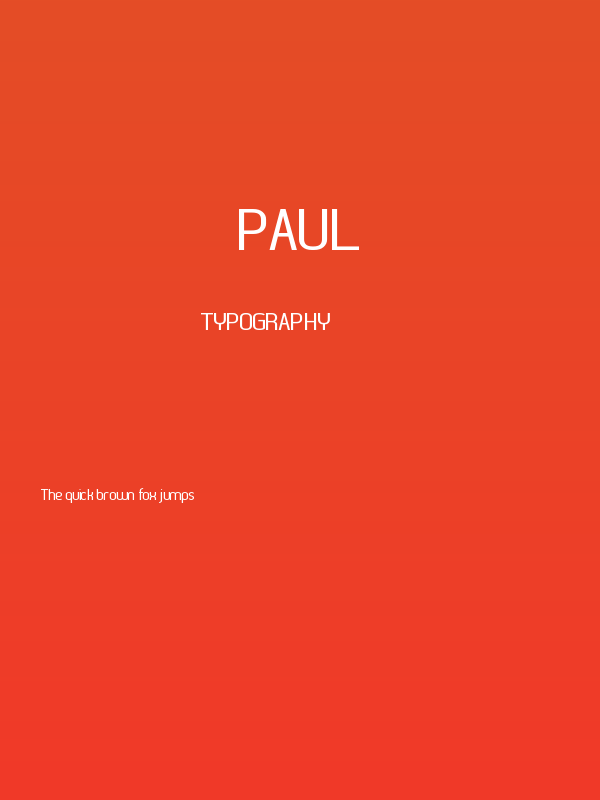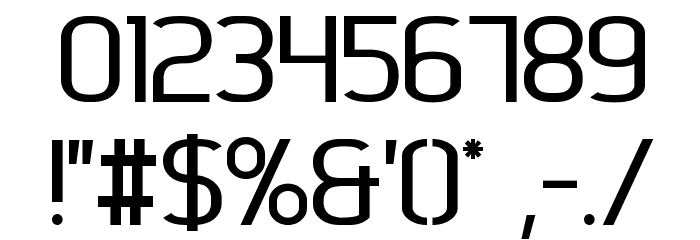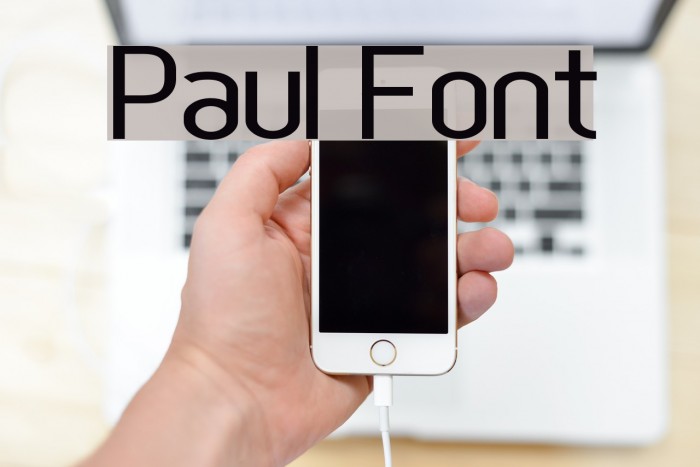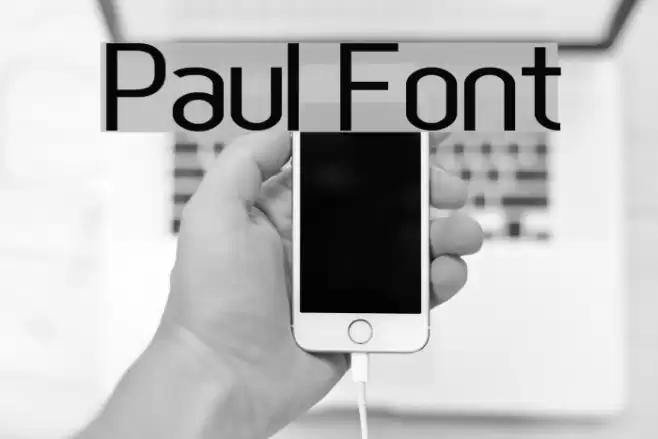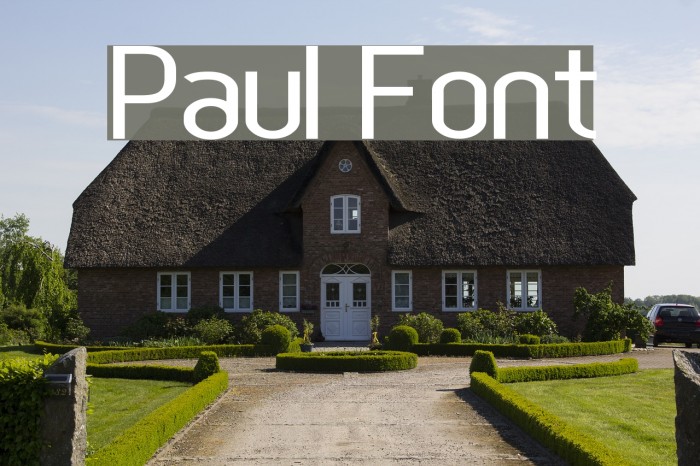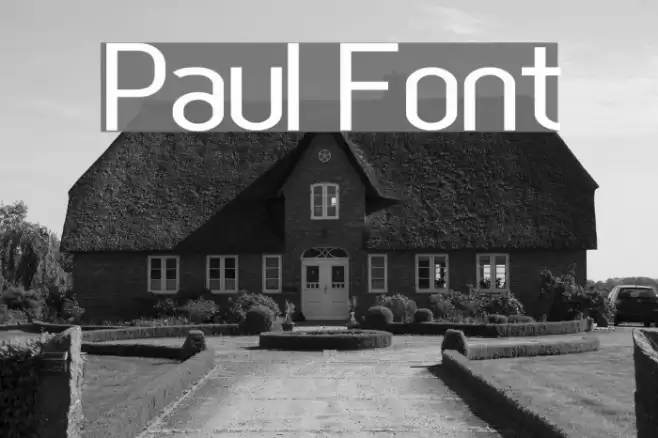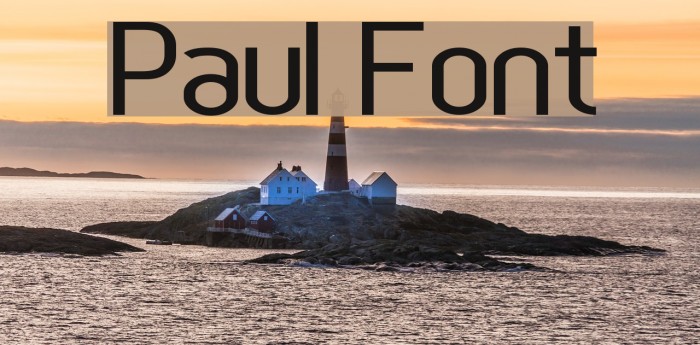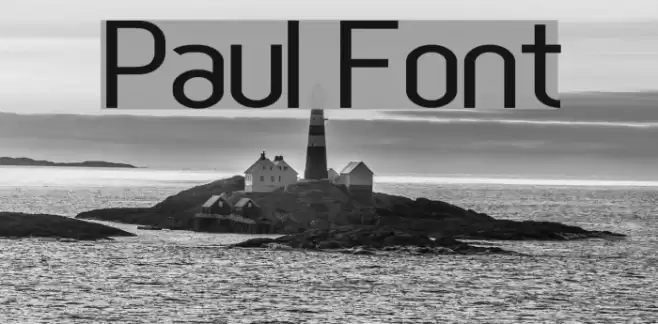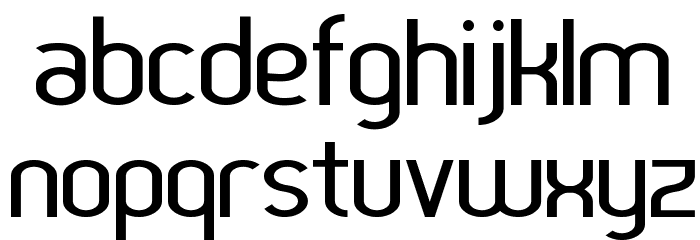
Paul Font
Paul Description
This font features a modern, geometric sans-serif style with clean lines and a uniform structure. The characters are well-balanced, with consistent stroke widths that give it a sleek and contemporary appearance. The uppercase and lowercase letters maintain a harmonious proportion, while the numerals are clear and easy to read. The special characters are designed to complement the overall aesthetic, making it versatile for various design needs. Its simplicity and clarity make it suitable for both digital and print media.
| Use Case | Headlines, Body text, Logos |
| Proposed Projects | Ideal for branding, web design, advertising, and editorial layouts. |